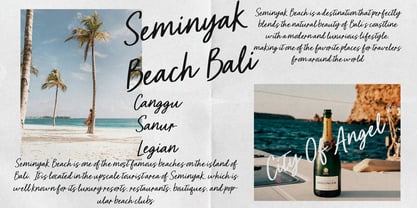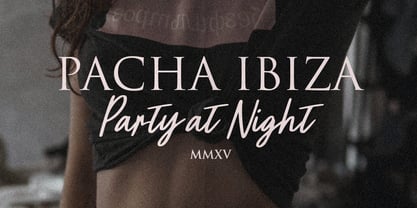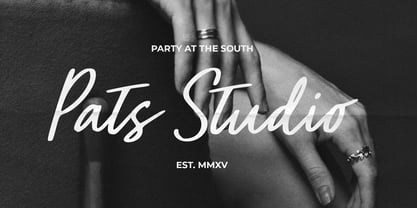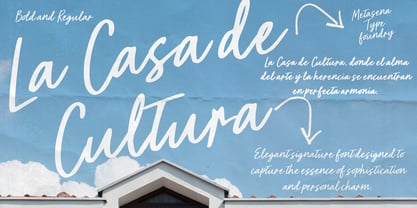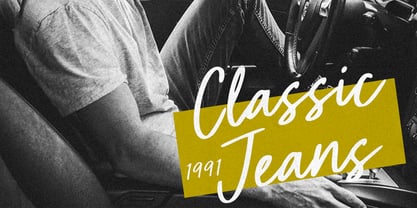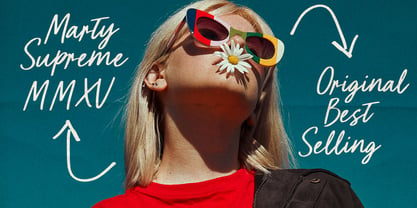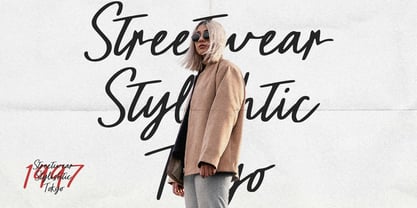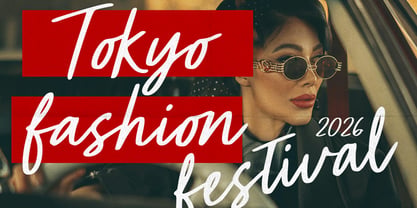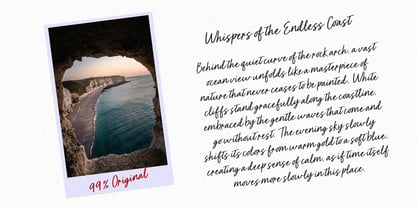
La Casa de Cultura
by Metasena Typefoundry
The La Casa de Cultura Font Family was designed by Ainal Mardiah and published by Metasena Typefoundry. La Casa de Cultura contains 2 styles and family package options. More about this family
La Casa de Cultura is a semi-signature typeface that captures the beauty of natural handwritten strokes with an elegant and professional touch. Inspired by the smooth flow of a pen, each letter is carefully designed with soft lines and harmonious balance, creating an authentic character that feels like a real signature. This font blends a relaxed handwritten style with a clean modern feel, resulting in a warm and personal look while still maintaining a professional appearance. Its gentle strokes add a natural and artistic impression, making every word feel expressive and full of character. La Casa de Cultura is perfect for a wide range of design needs such as branding, logos, wedding invitations, editorial designs, product packaging, social media graphics, and digital signatures. Its versatility allows the font to stand beautifully on its own or pair seamlessly with serif and sans-serif typefaces. With its elegant yet simple style, La Casa de Cultura brings warmth, authenticity, and professional sophistication to every design.
Designers: Ainal Mardiah
Foundry: Metasena Typefoundry